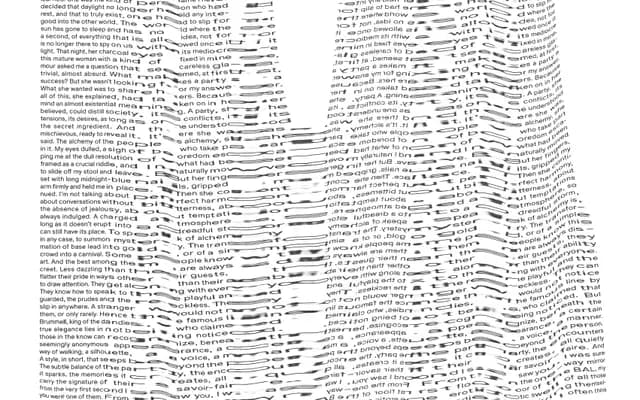
Thunder Collection
A three-optical-size serif family from Bal Foundry, spanning Caption, Text and Display cuts across five weights with matching italics and variable font support.
Structured across three discrete optical sizes, the family offers 30 static styles plus variable fonts for each size, as well as a single collection-wide variable font that spans the full range. The five weights from Regular to Bold are mirrored by a full set of italics, giving editors and designers consistent rhythm at caption, body and headline scales. The naming nods to Luigi Russolo's 1913 Futurist noise taxonomy, lending it a distinct conceptual framing.
The family's optical size structure across Caption, Text and Display cuts, combined with its range from Book to Bold with italics, suggests a serious text serif with transitional characteristics suited to editorial publishing at multiple scales.